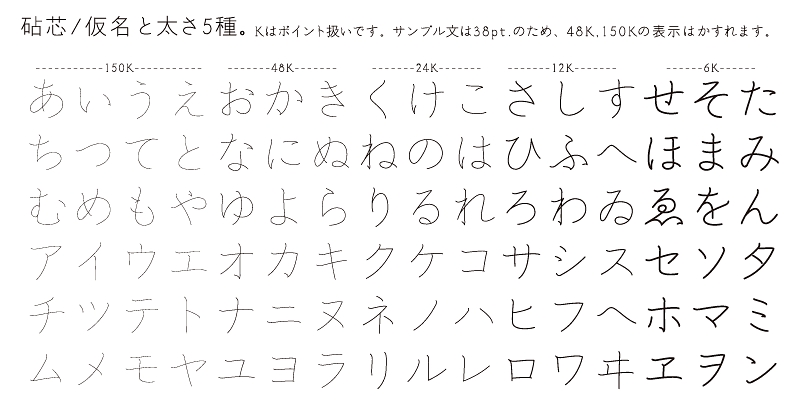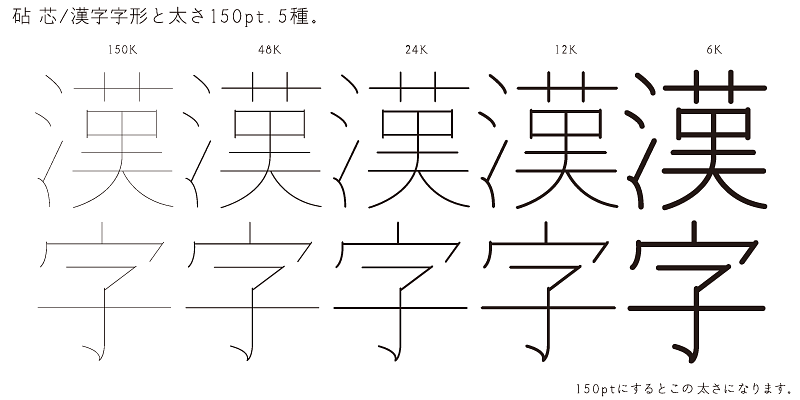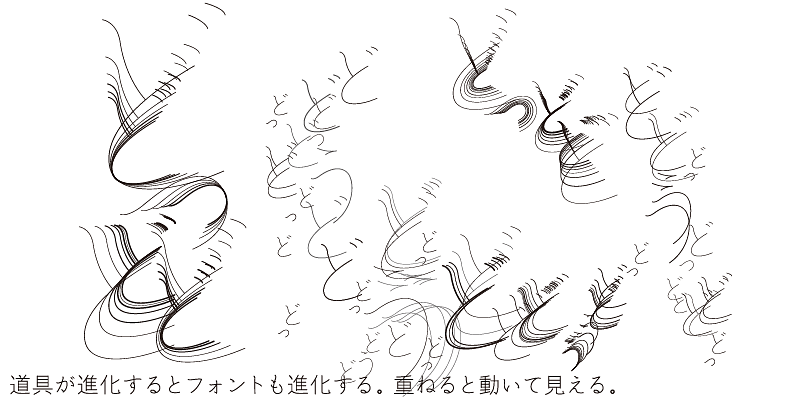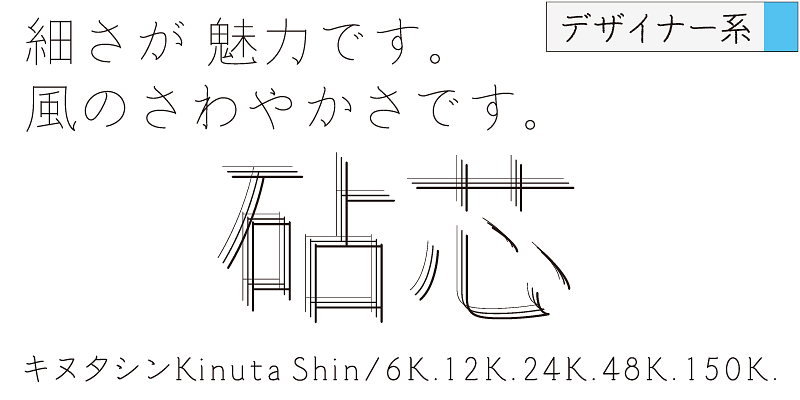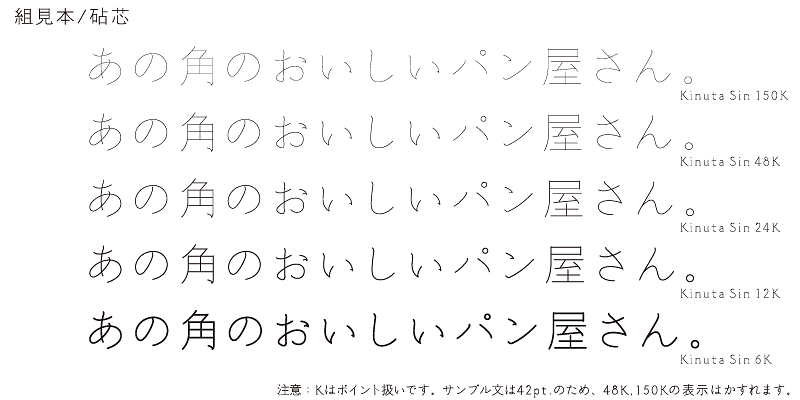
This typeface is characterized by the thinness of its strokes. Each weight name indicates the smallest type size at which the font can be displayed. Its adaptive design complements photographs and illustrations. One of the unique qualities of Shin is that even if you overlap multiple instances of a character, the result is still legible. It’s an elegant design with a flavor of the Mincho-style.
One characteristic of the Japanese language is that it has kana syllabic characters. Kana characters were invented in Japan to represent sounds in Japanese and translate texts imported from China into Japanese. Kana characters are needed to create Japanese words and expressions from kanji/Chinese ideographic characters. While there may be ambiguities, these words and expressions exhibit the warmth and gentleness of the lives of people living in the small and densely populated land of Japan.
Kinuta Font Factory’s believes that kana characters are the origin of written words in Japanese, and we think that improving kana characters will make Japanese text more attractive. On average, 60% of Japanese text consists of kana characters – changing the shape of these characters changes the visual appearance of the text. The possibilities for typographic expression using simple, dynamic and curvilinear kana characters are vast, and the richness of Japanese text depends on kana characters. This is the reason why Kinuta Font Factory offers many variations of kana typefaces.